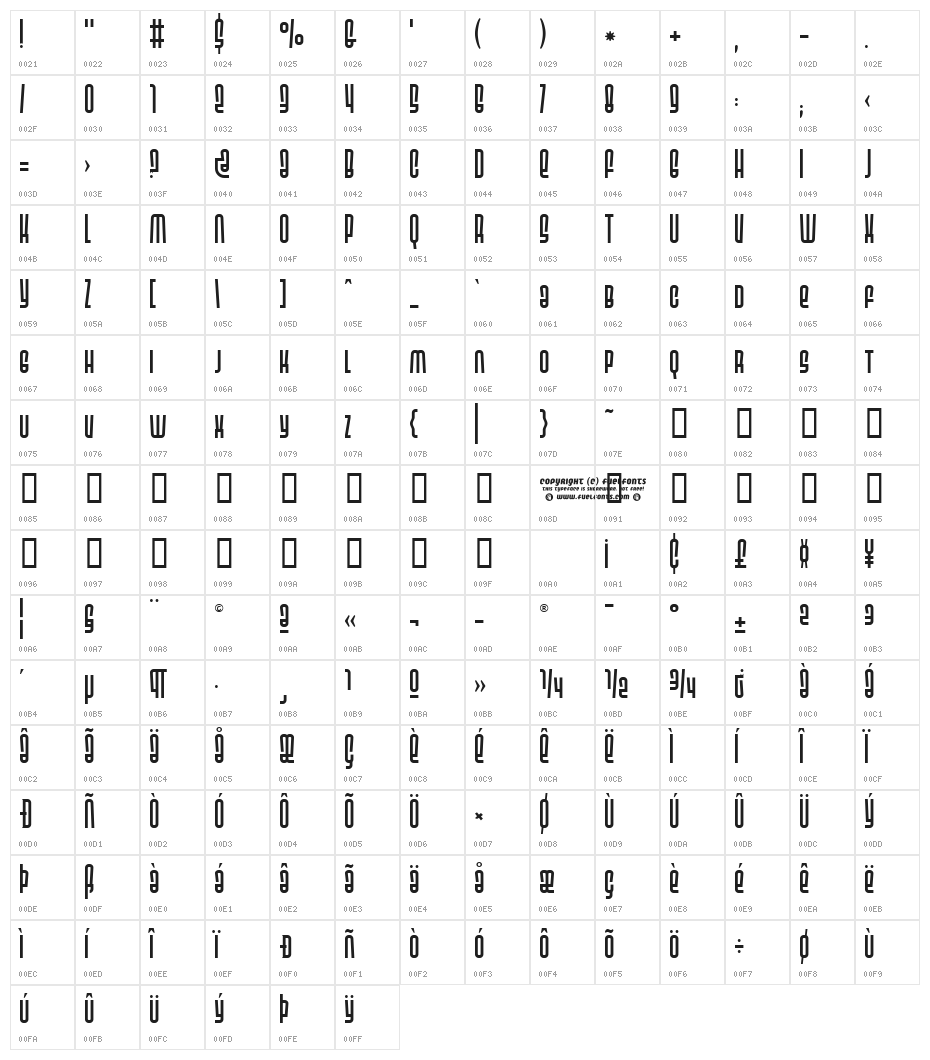
Releaser Font
Releaser Description
This font features a bold, geometric design with a strong, upright stance. The characters are tall and narrow, creating a condensed appearance that is both modern and striking. The uniform stroke width throughout the characters gives it a clean and structured look, while the rounded edges add a touch of softness to the overall design. The uppercase and lowercase letters maintain a consistent style, with the lowercase mirroring the uppercase in form. The numerals and special characters follow the same design principles, ensuring a cohesive appearance across all elements. This font is well-suited for projects that require a bold and impactful visual statement.
| Proposed Projects | Ideal for branding, posters, headlines, and any project requiring a strong visual impact. |